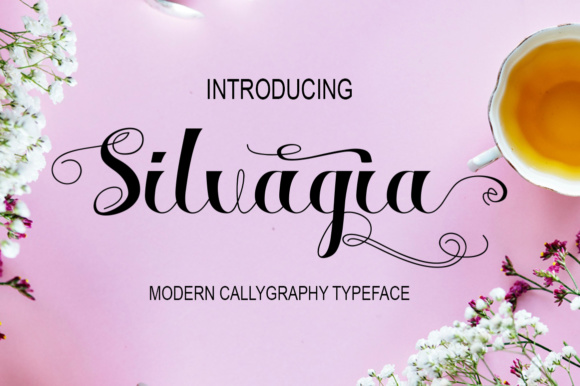
Immerse yourself in the world of Silvagia, an enchanting script font that captures the essence of true artistry. At Arwah Studio, we've meticulously crafted this font to bring a touch of captivating charm to your creative endeavors. Let Silvagia unleash the power of individuality and make your designs stand out from the crowd.
With an array of alternates, this font becomes a versatile chameleon, adapting seamlessly to express diverse emotions and styles. Whether you're a seasoned designer or just starting your creative journey, Silvagia is the perfect font to transform your ideas into visually stunning masterpieces.
Feel the warmth of Silvagia's flowing strokes as they dance across your designs, adding a touch of irresistible grace to every letter. Its inherent elegance elevates ordinary text into an artistic masterpiece, captivating the attention of your audience and leaving them spellbound.
Dare to be unique and embrace the creativity that Silvagia offers. Whether you're designing eye-catching logos, enchanting invitations, or simply adding a personal touch to your digital creations, this font is your artistic passport to a world of endless possibilities.
Don't settle for ordinary fonts that fade into the background. With Silvagia, your designs will radiate charm, authenticity, and sophistication. Embrace the beauty of the handwritten aesthetic and embark on a creative journey that will leave a lasting impression on your audience. Dive into the world of Silvagia and let your designs bloom with unparalleled beauty.